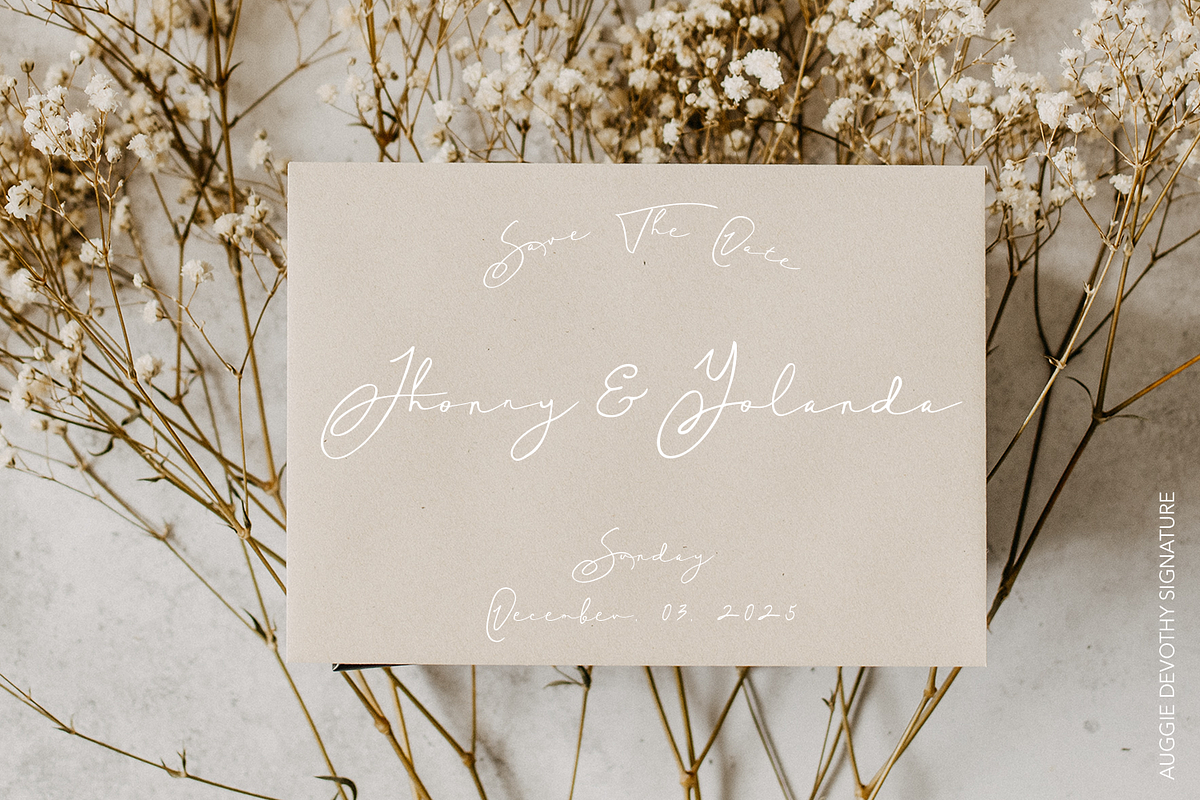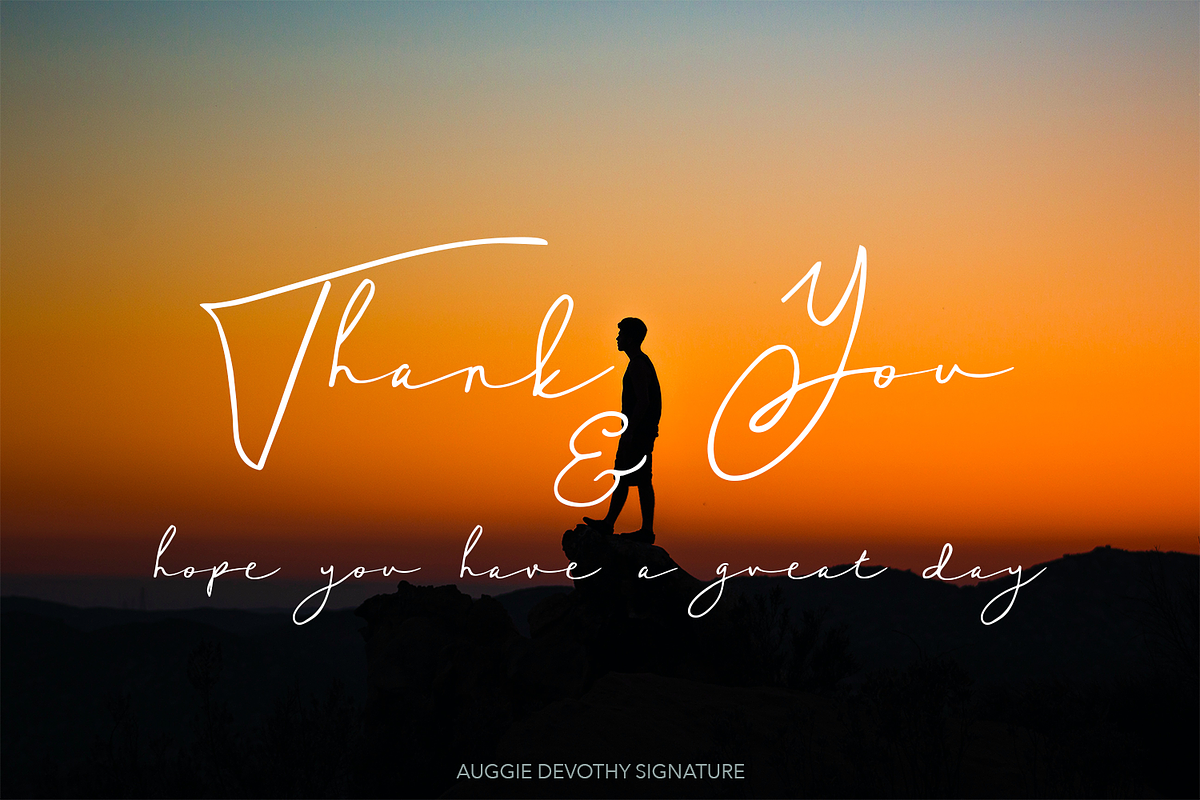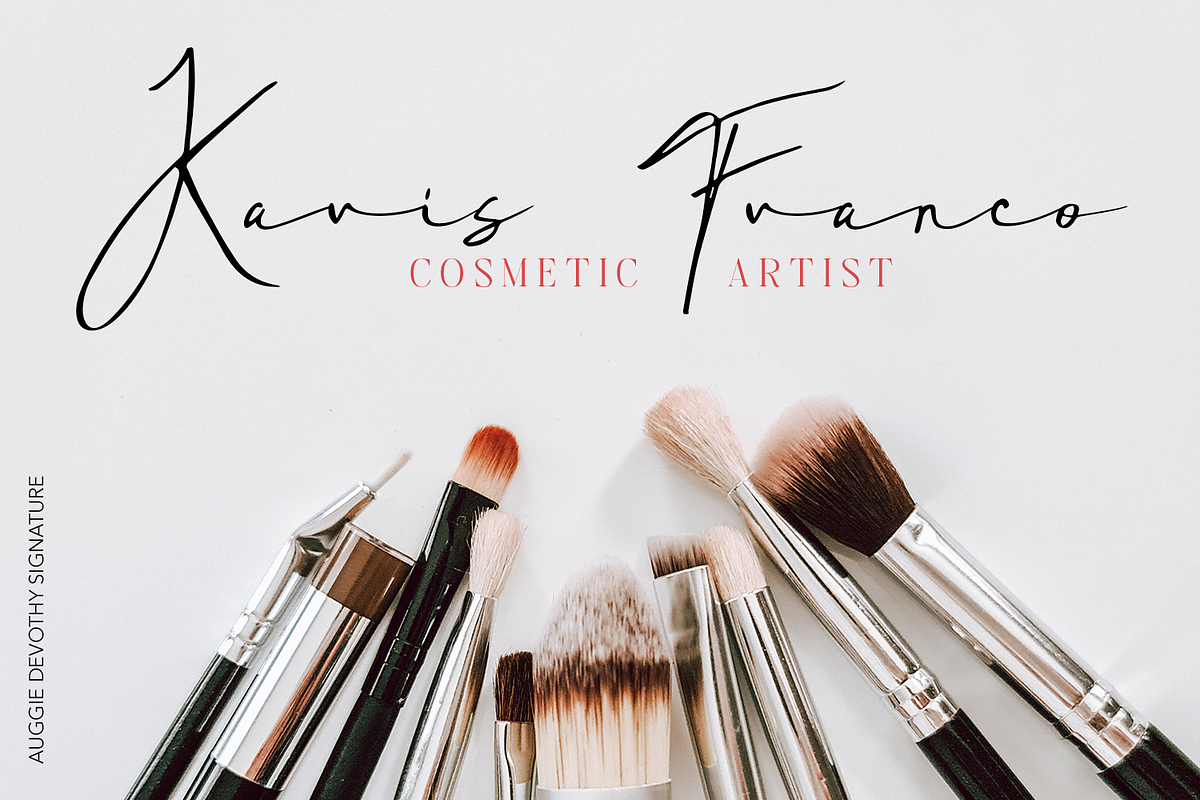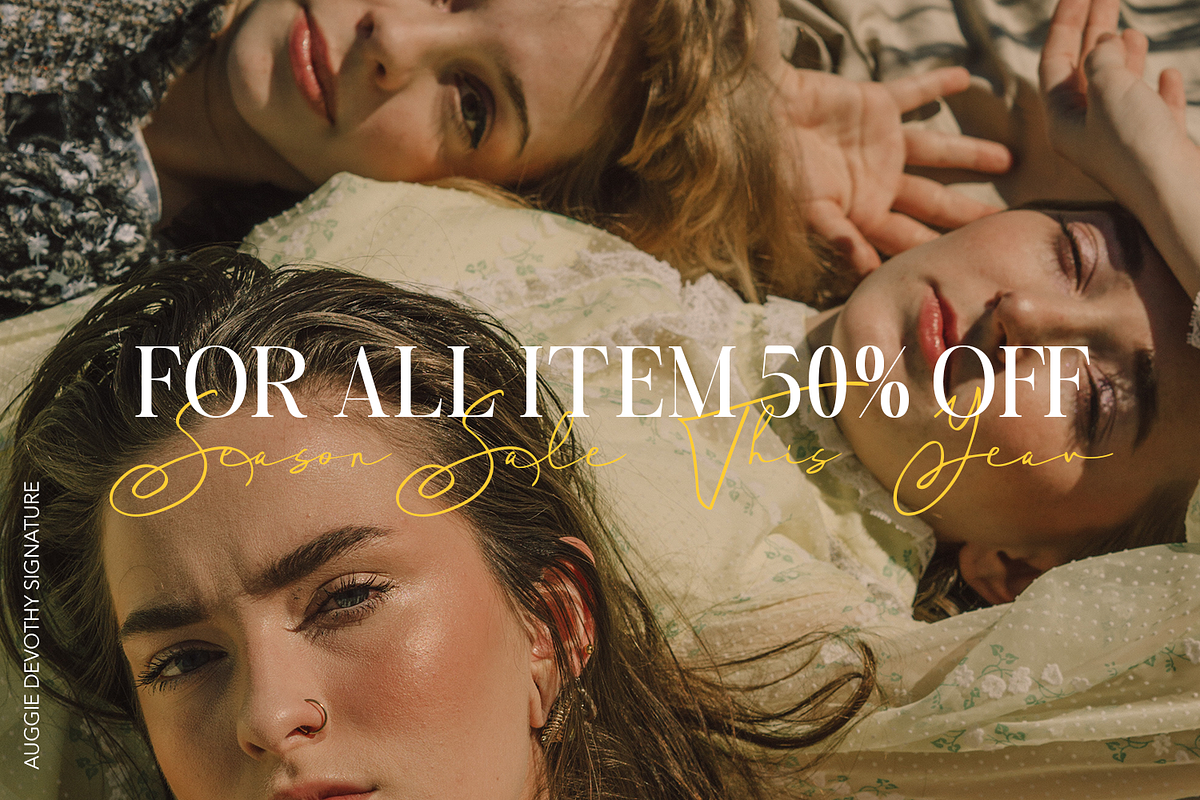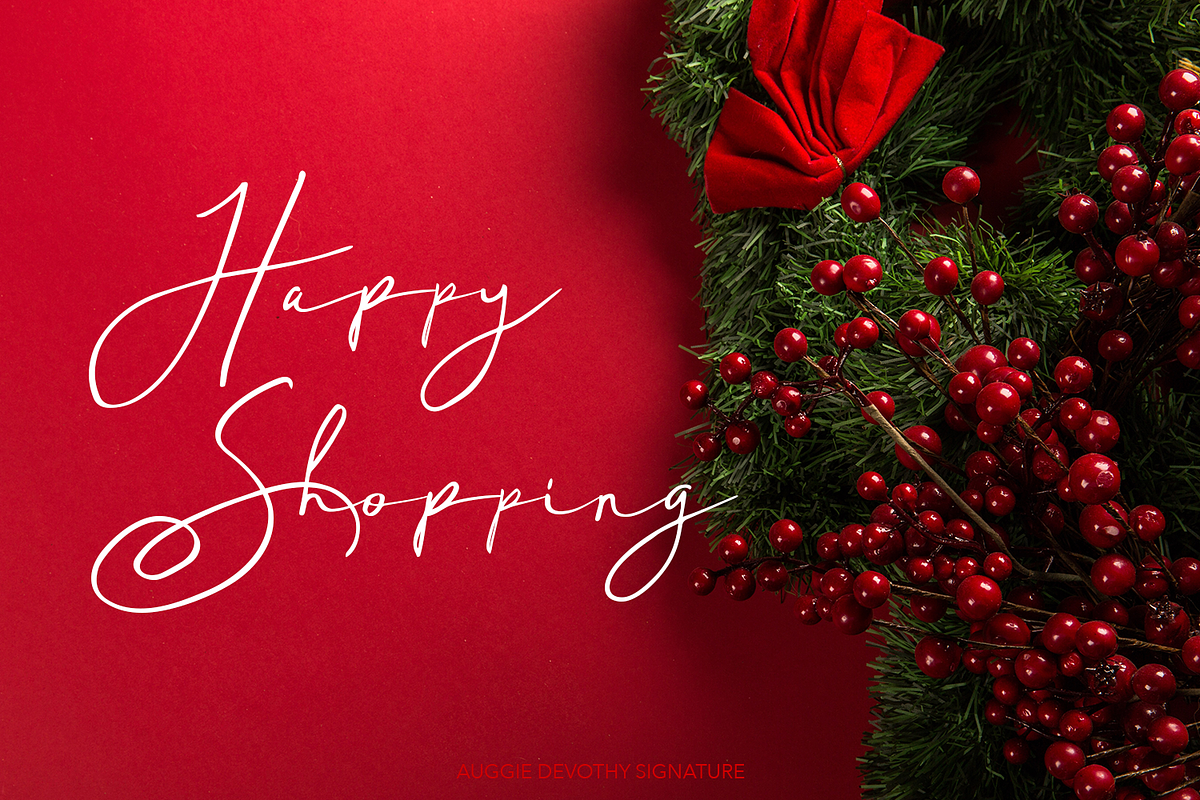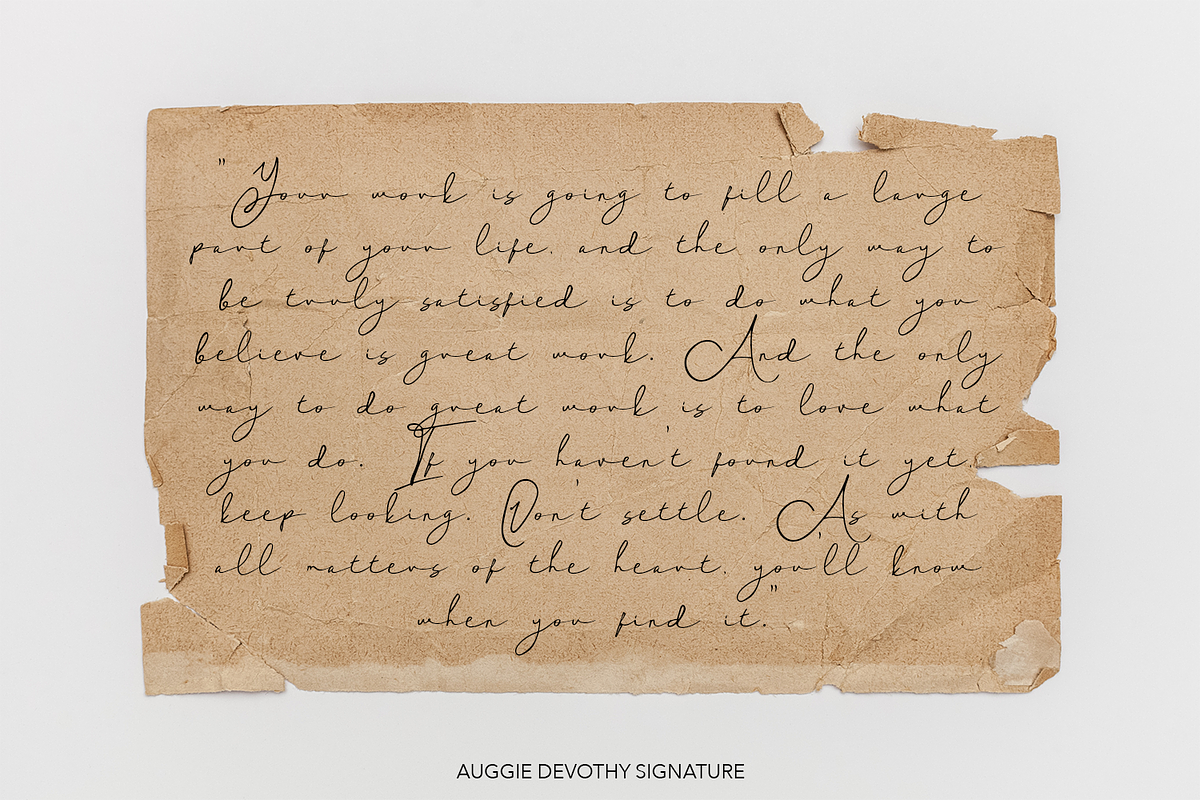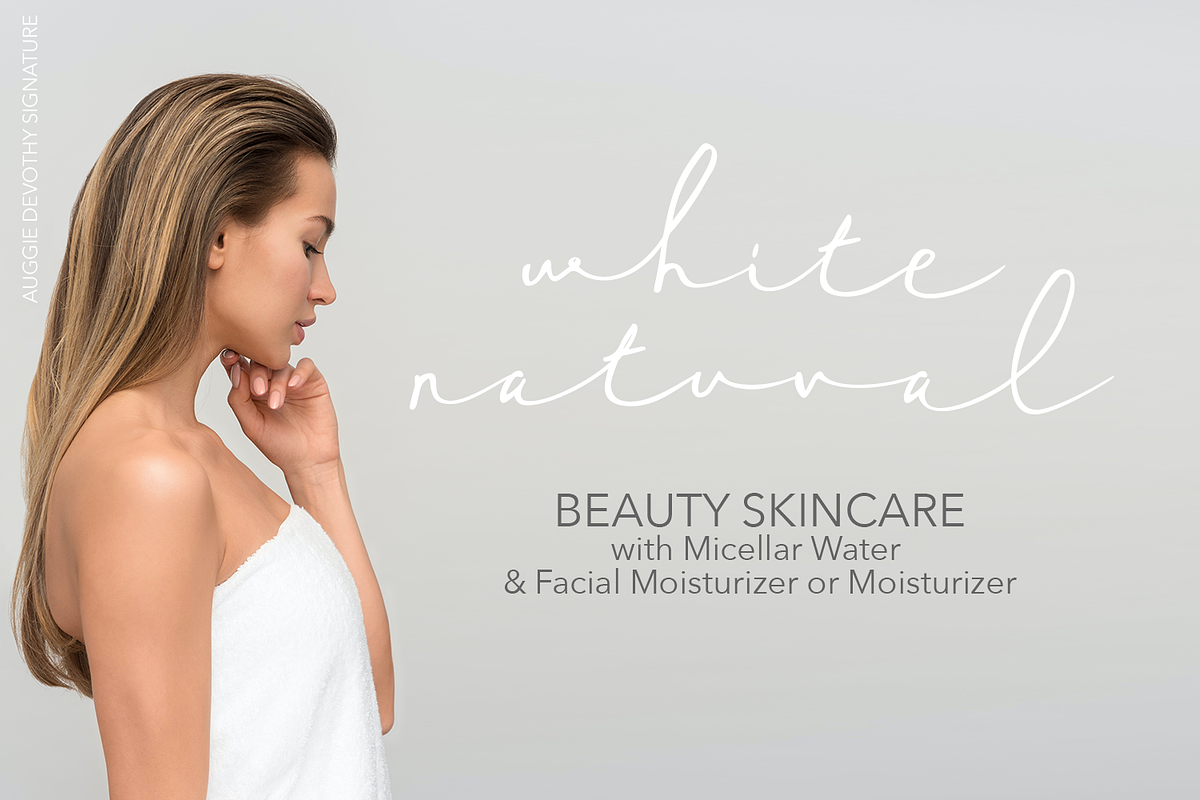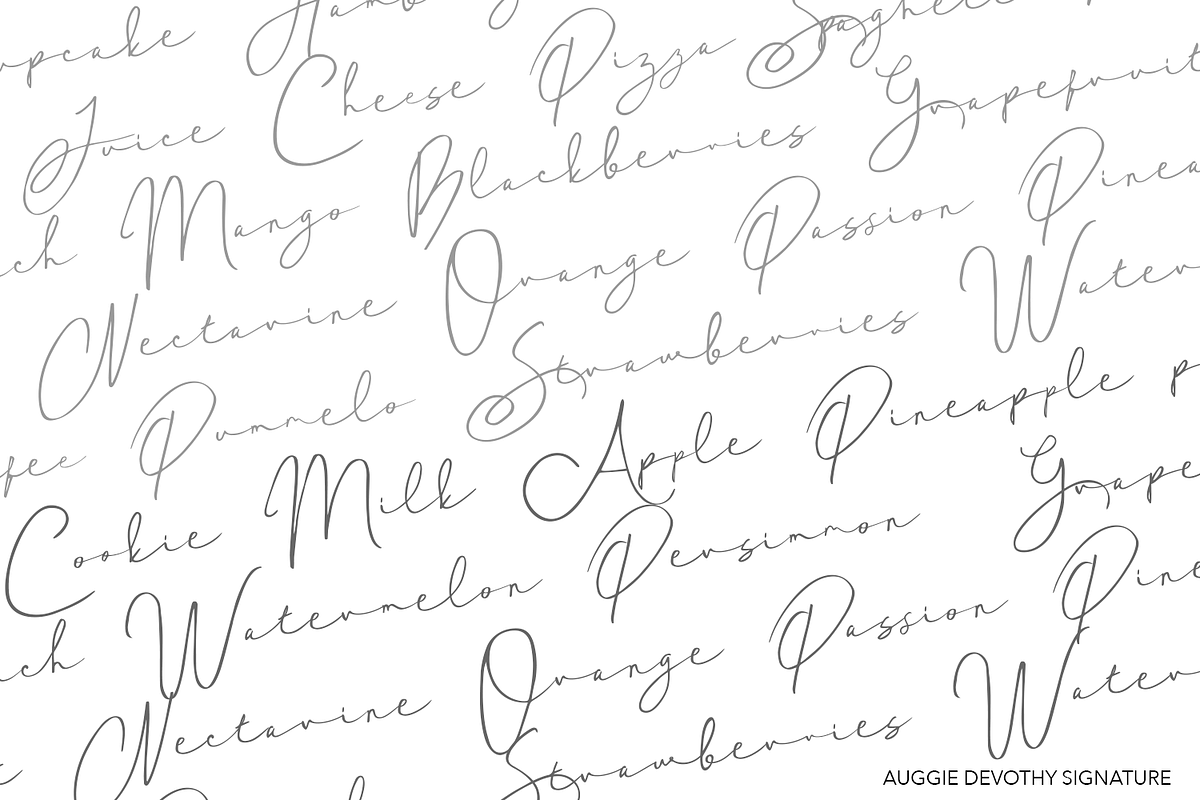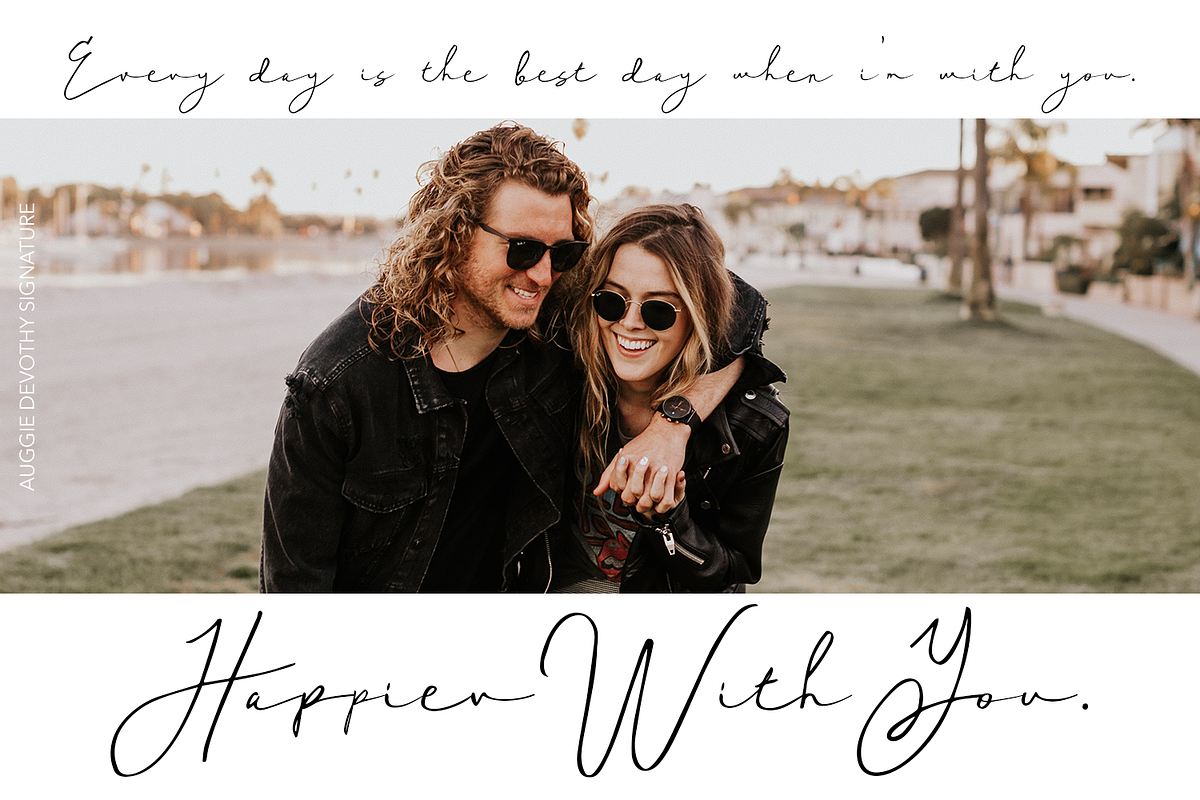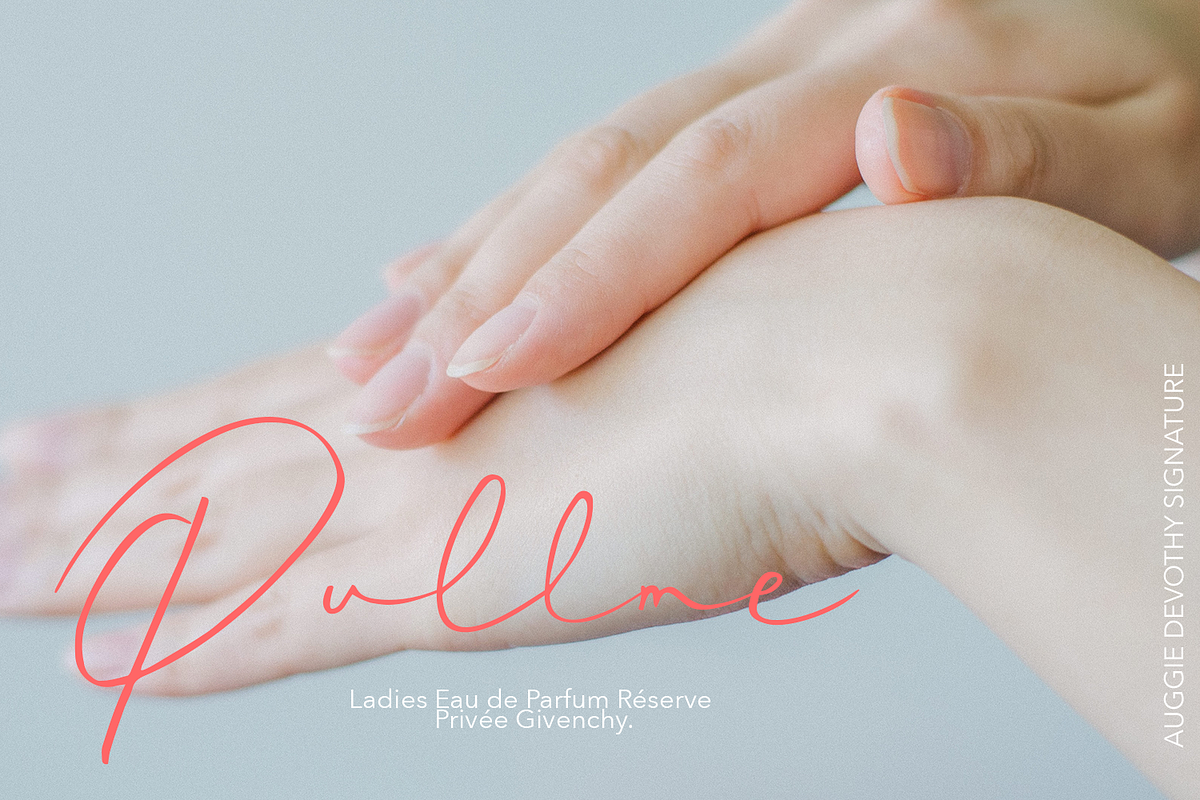
Auggie Devothy Signature
Really excited to introduce Auggie Devothy is a realistic signature to give a incredible impression for all your project design come with more than 149 ligatures in each font to make everything look realistic handmade signature.